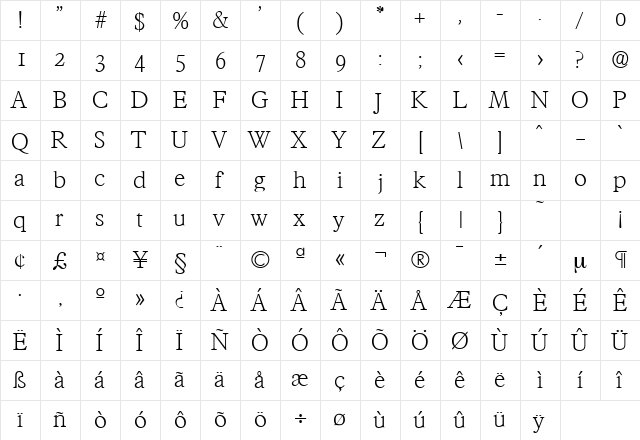
Francisco-Serial-ExtraLight Regular
Design Context for Francisco-Serial-ExtraLight Typeface
Francisco-Serial-ExtraLight is a composed and adaptable typeface that performs quietly and consistently across a wide range of design contexts. The delicate stroke weight brings airiness and refinement to layouts.